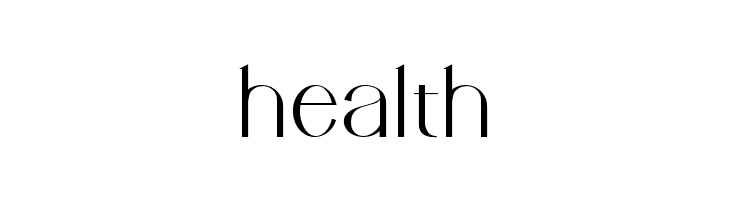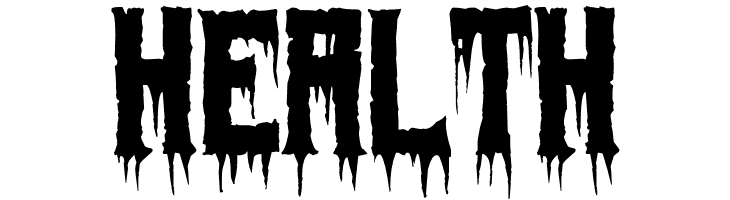
A bold, horror-themed font with dripping, jagged edges.
A gothic, dramatic font with sharp, angular lines and pointed serifs.
A bold, geometric font with unique cutouts and rounded edges.
A modern, elegant font with geometric and organic elements.
A bold, italicized font with a modern, dynamic style.
A bold, geometric font with a modern, angular design.
A horror-themed font with dripping, jagged letters for a spooky effect.
A bold, dripping font ideal for horror-themed designs.
An elegant script font with flowing, interconnected letters and intricate swirls.
A bold, jagged font with a horror-themed, distressed appearance.